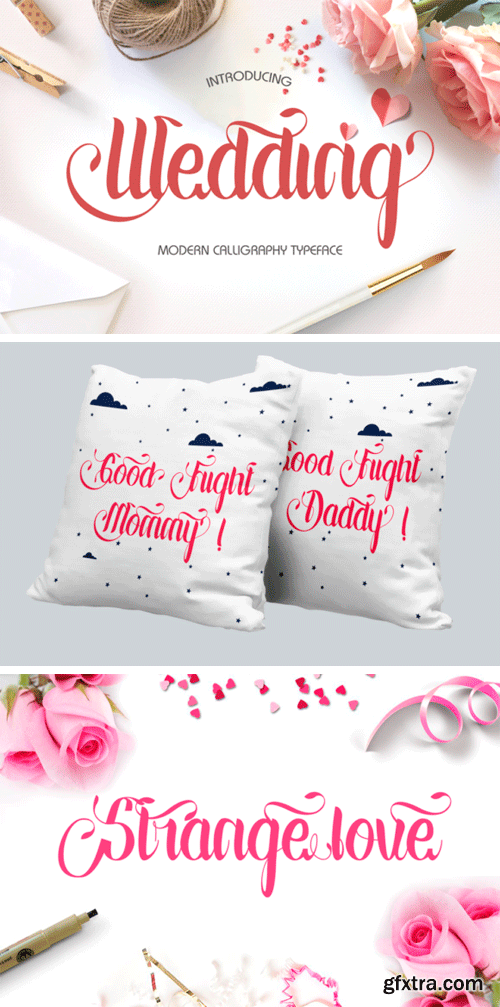
Wedding Script Font
The Wedding is a gorgeous calligraphic font, perfect for wedding stationery, lettering on greetings cards and any kind of artwork. It will give a romantic and elegant feel to every design!